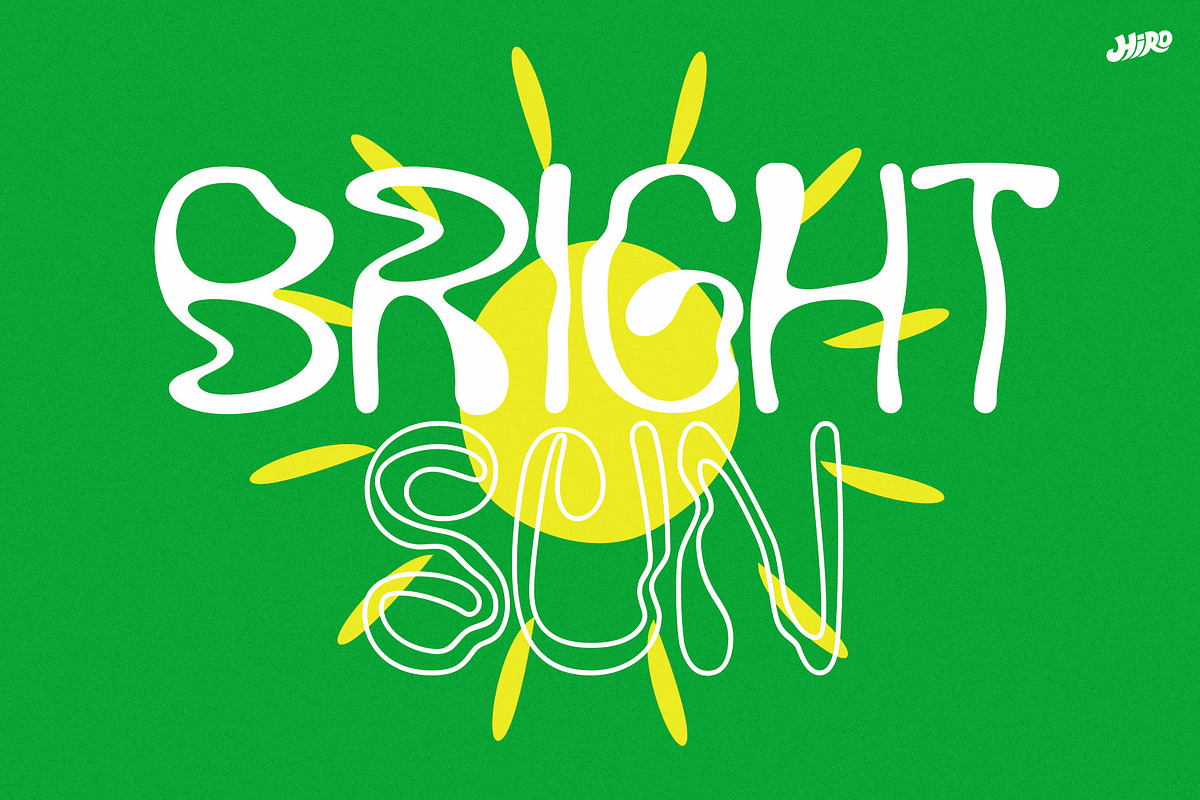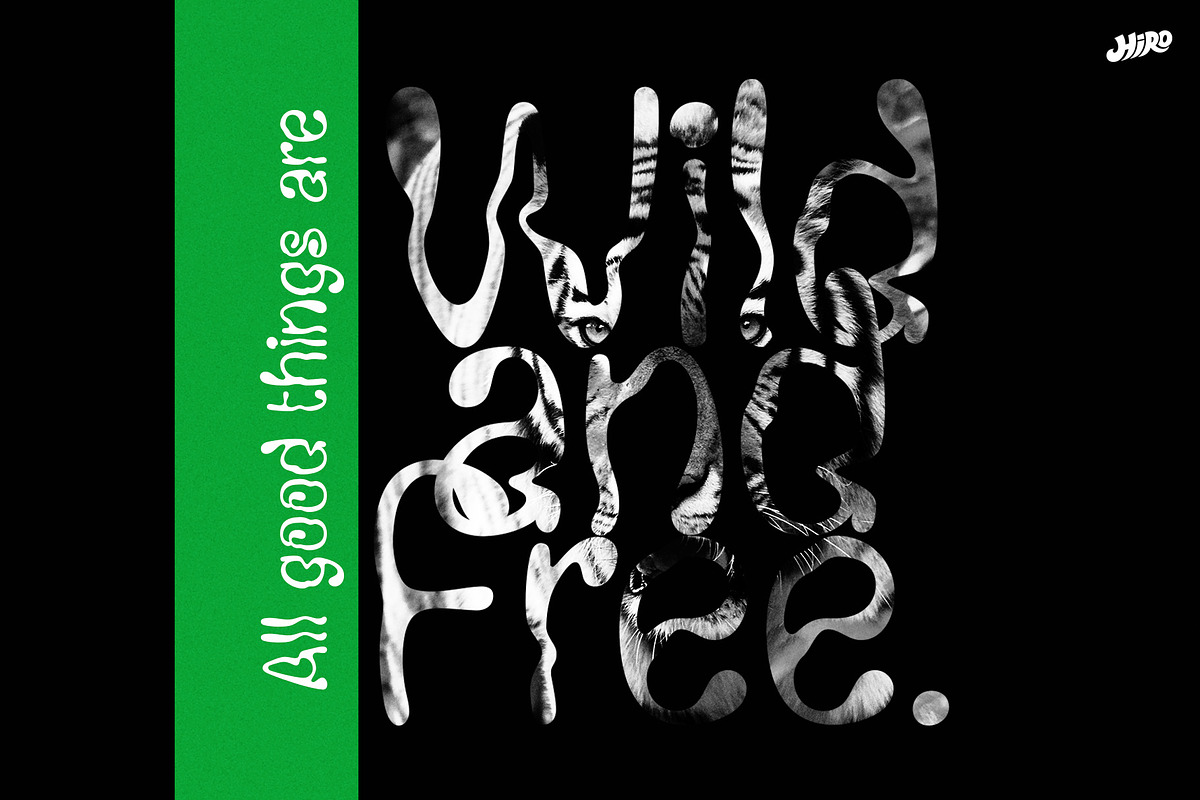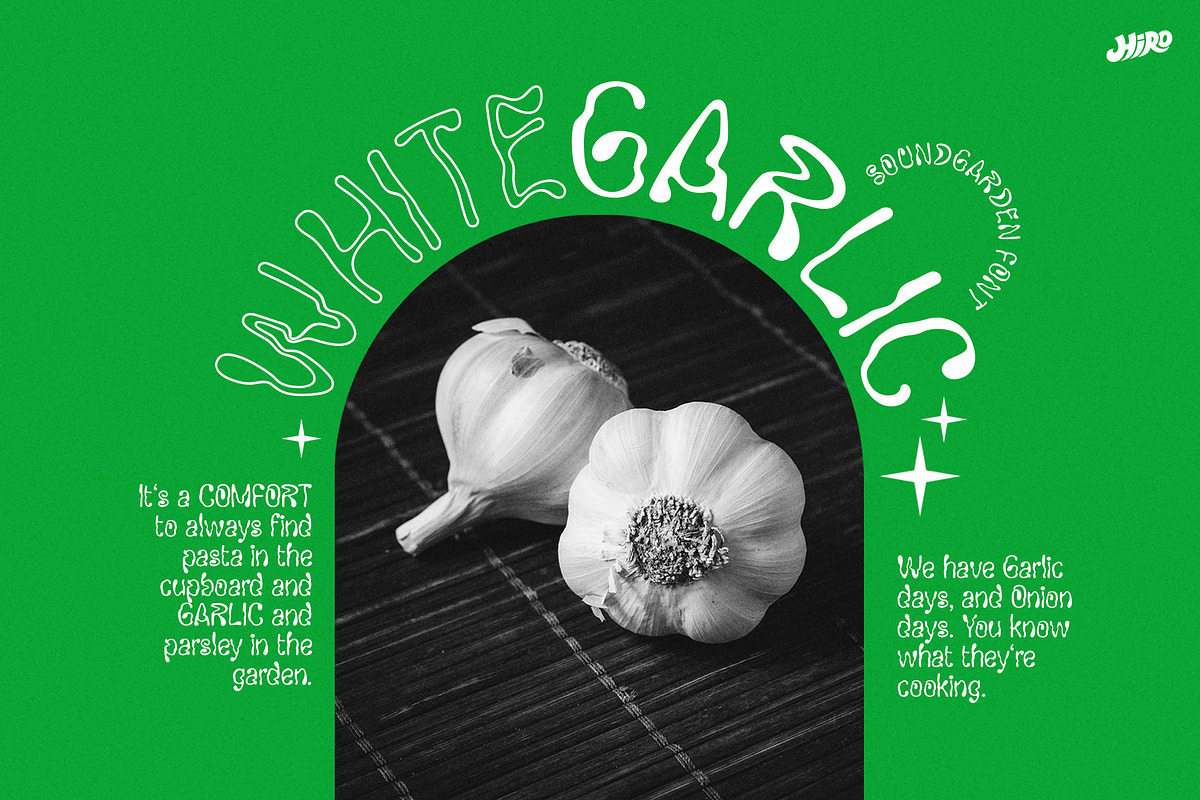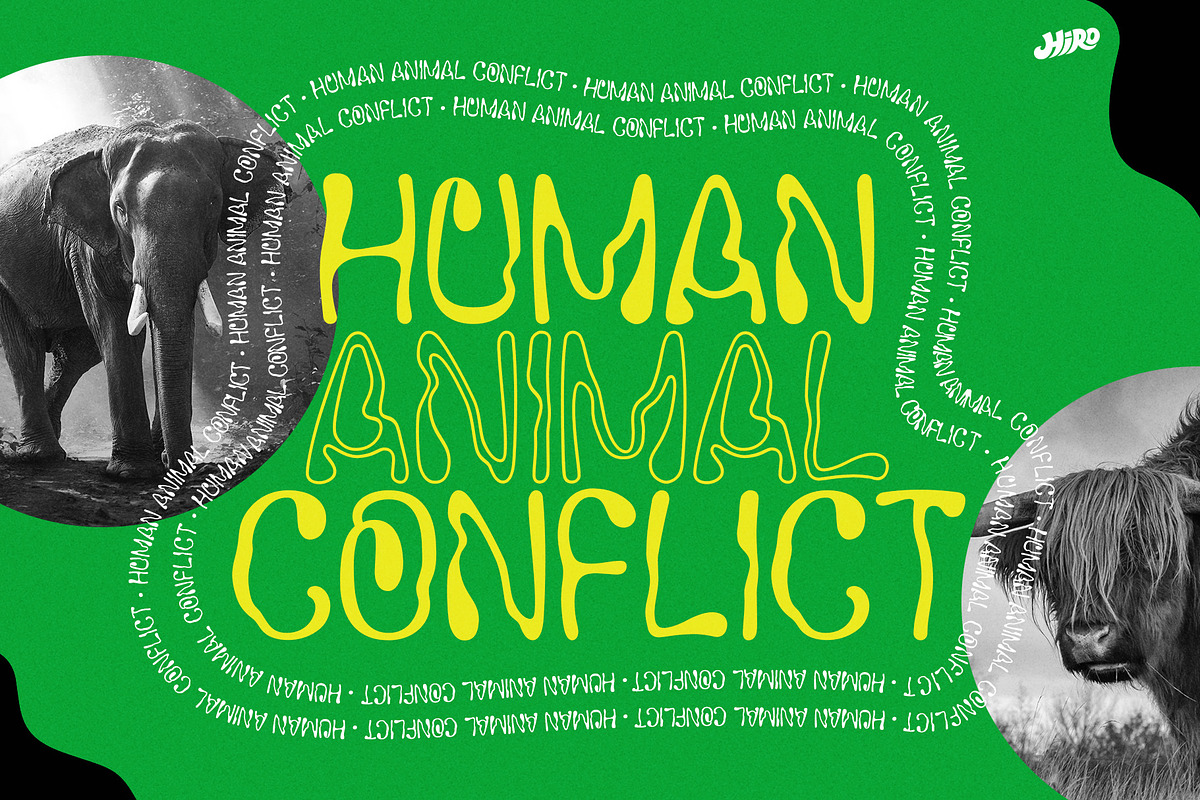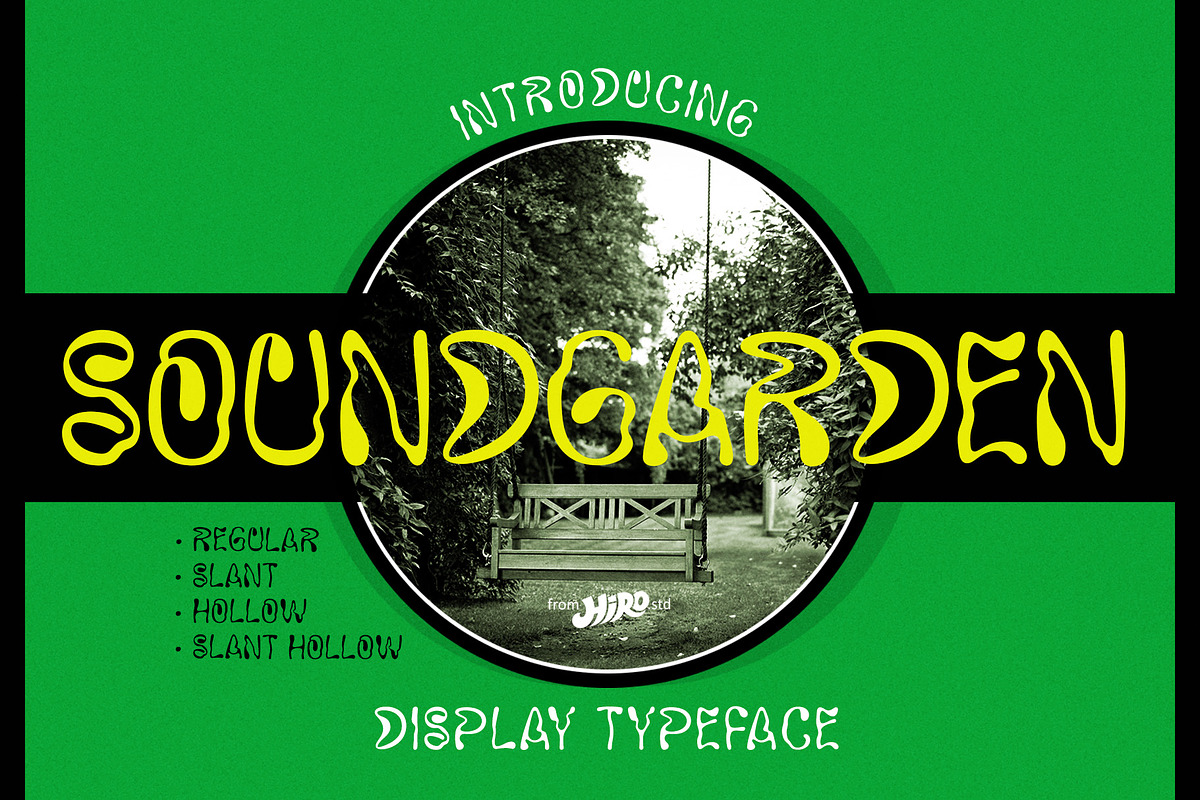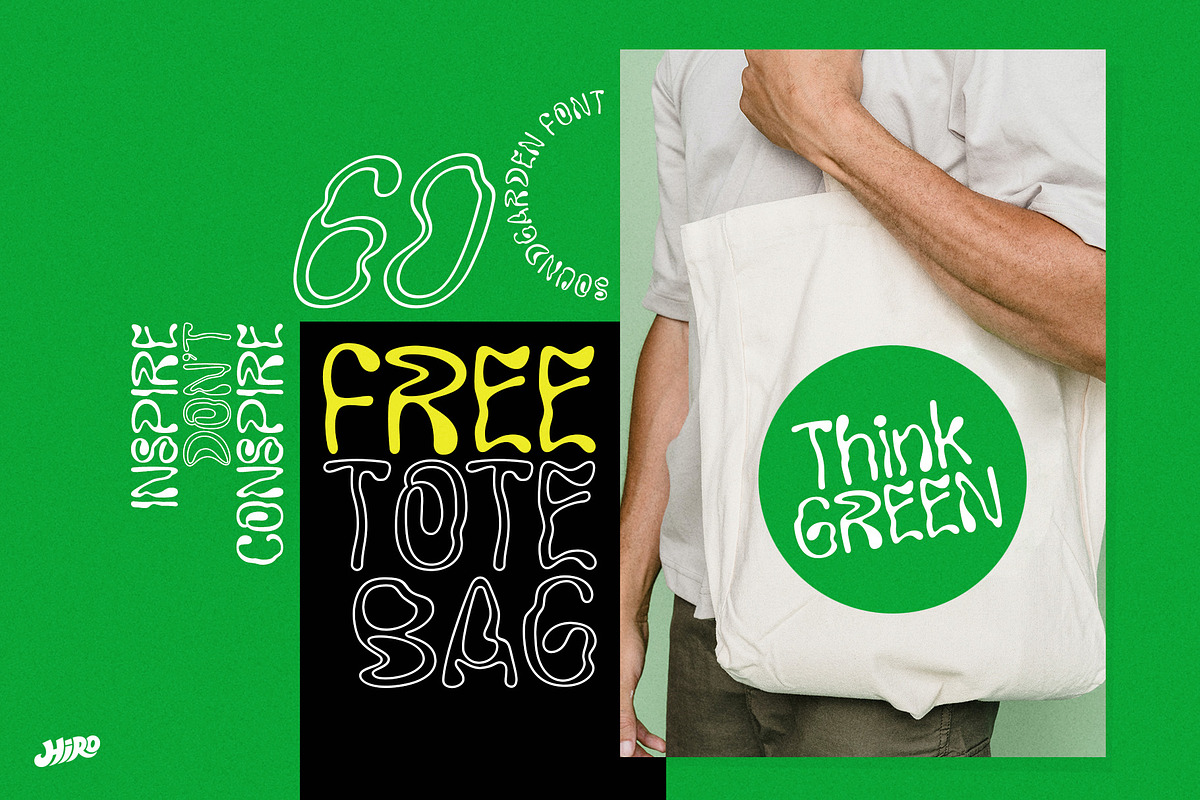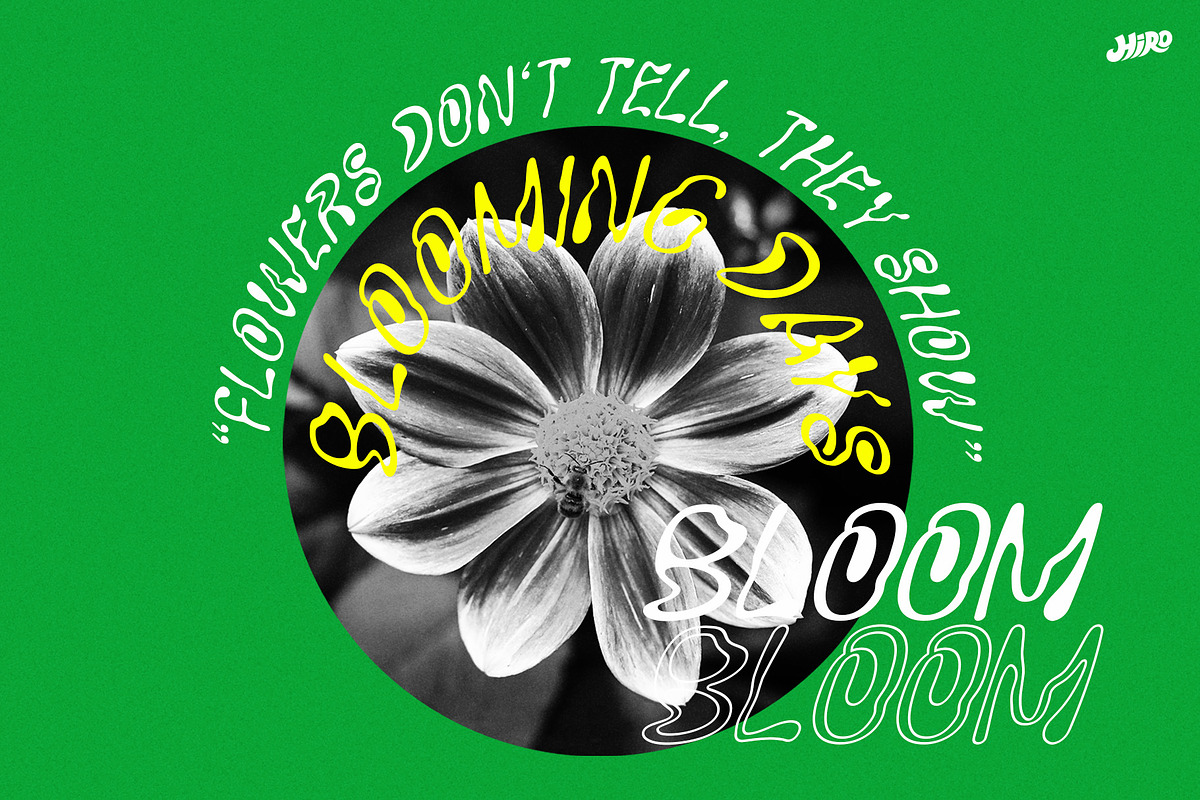
Soundgarden - Display
Soundgarden is a Display Typeface.
This font describes about stylist, modern, psychedelic look, and easy to use. Soundgarden Display Typeface inspired from the modernity, psychedelic art and natural beauty.
USE Soundgarden Display Typeface works great in masthead, Logo, T-shirt/ Apparel, Poster and Magazine.